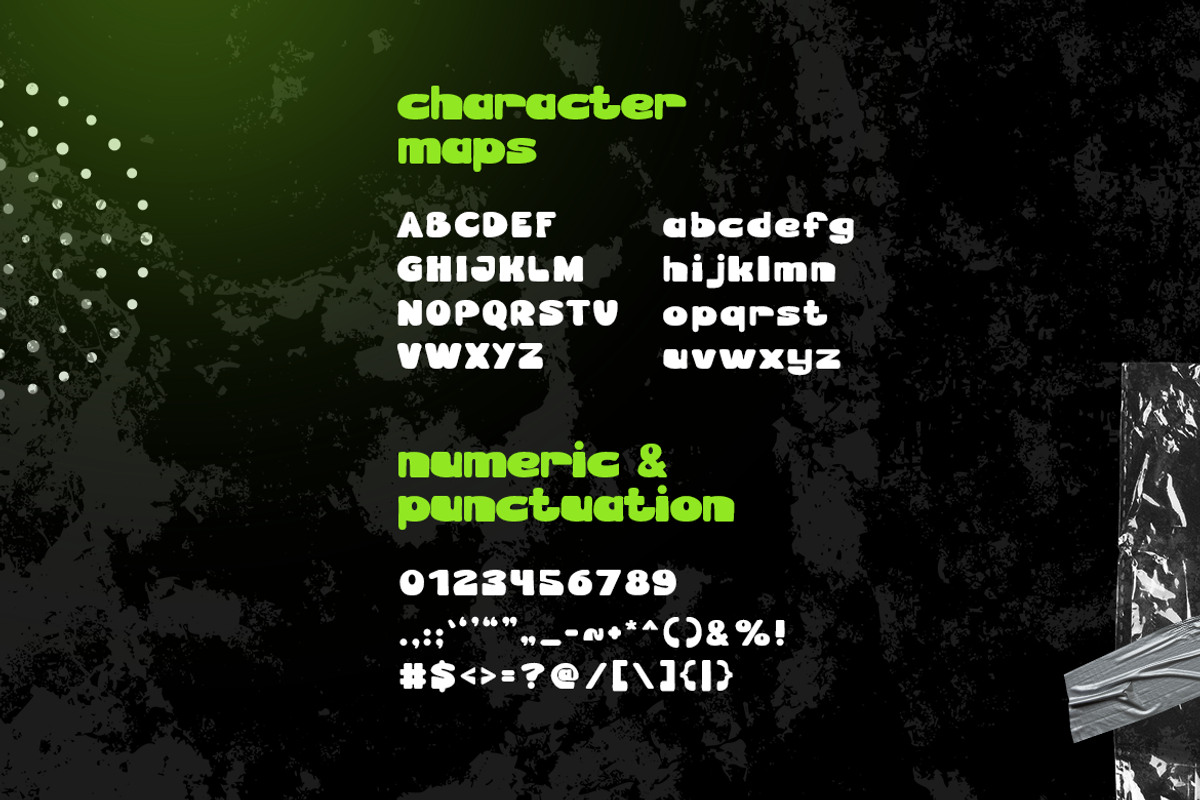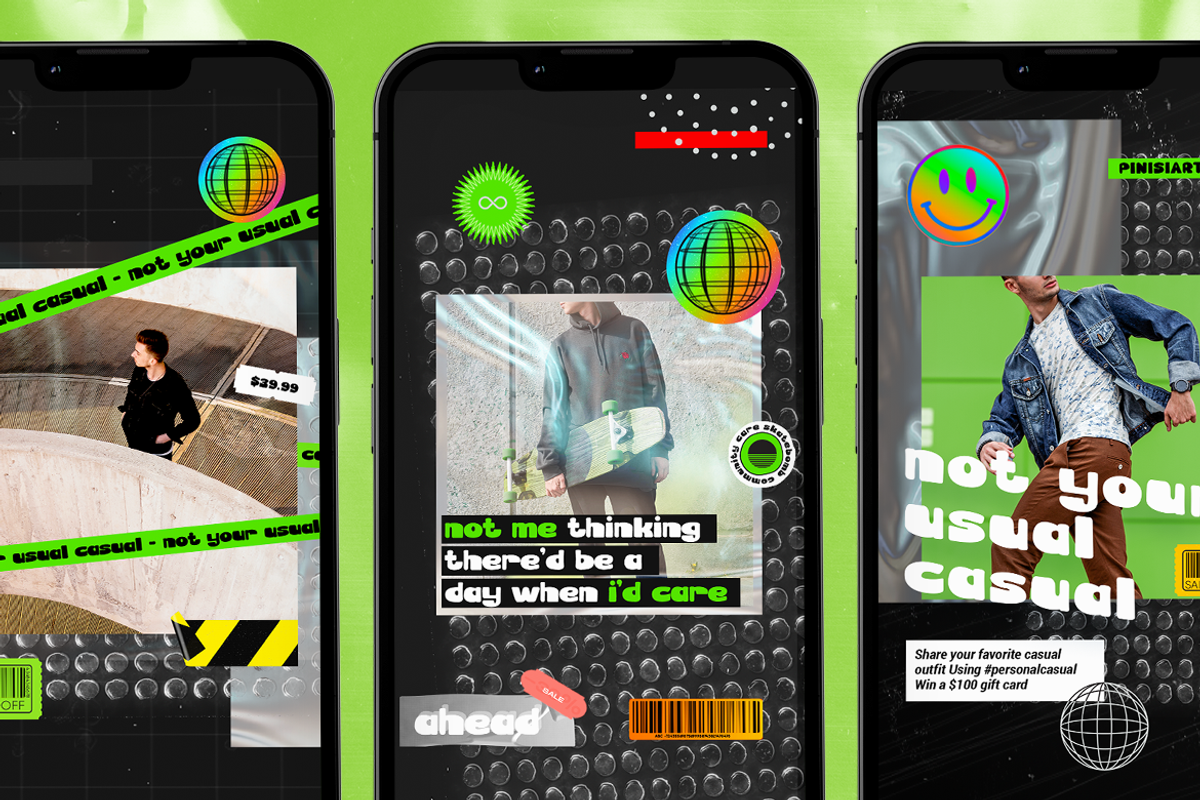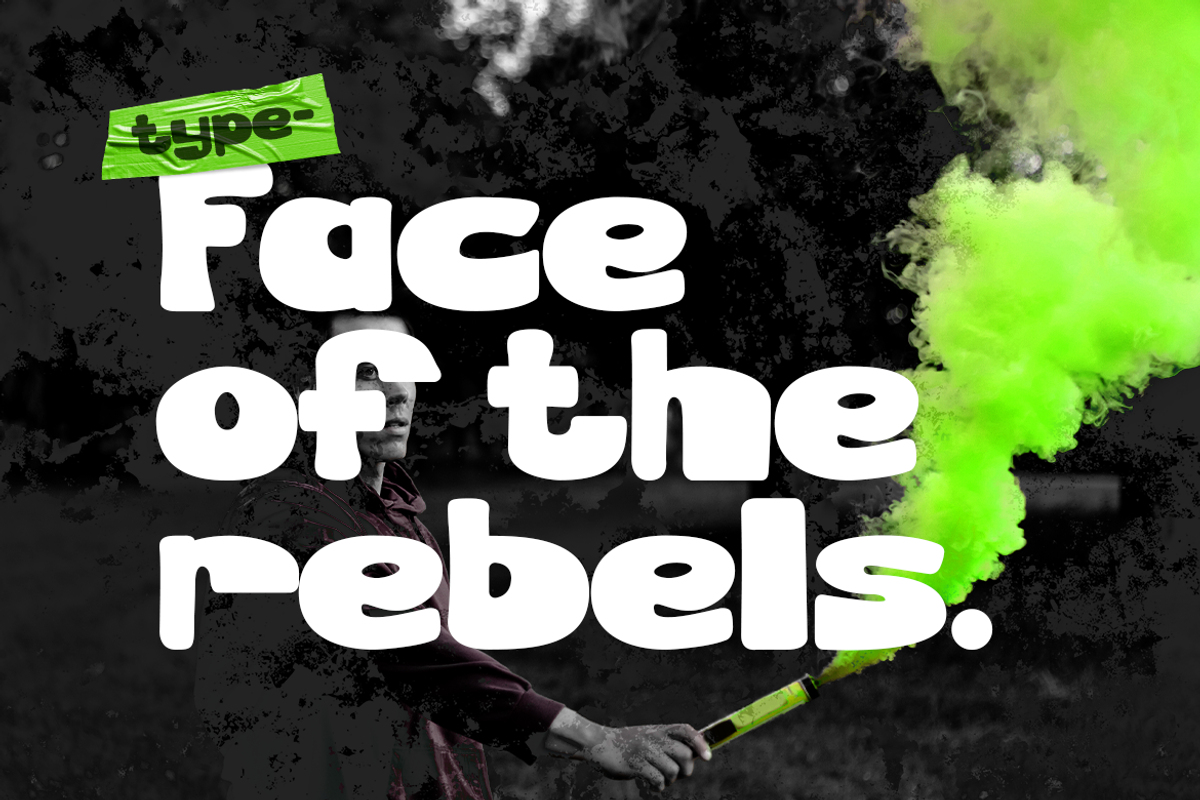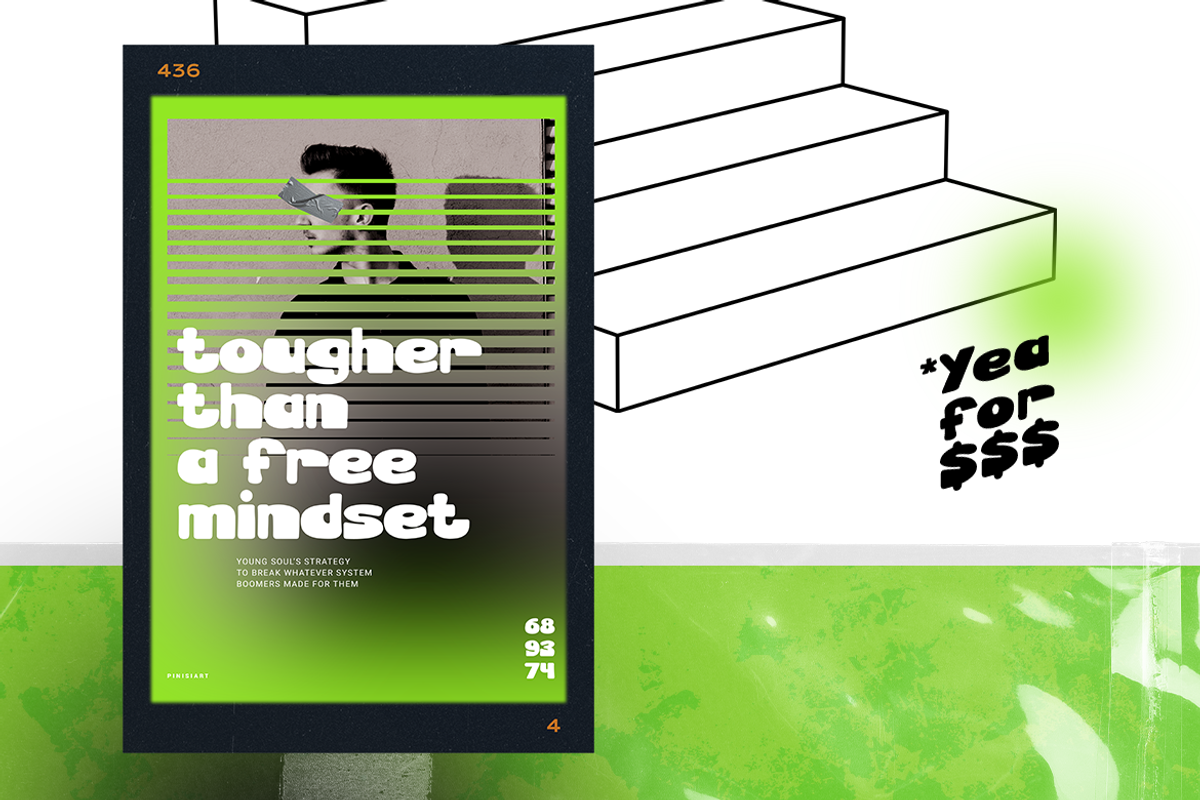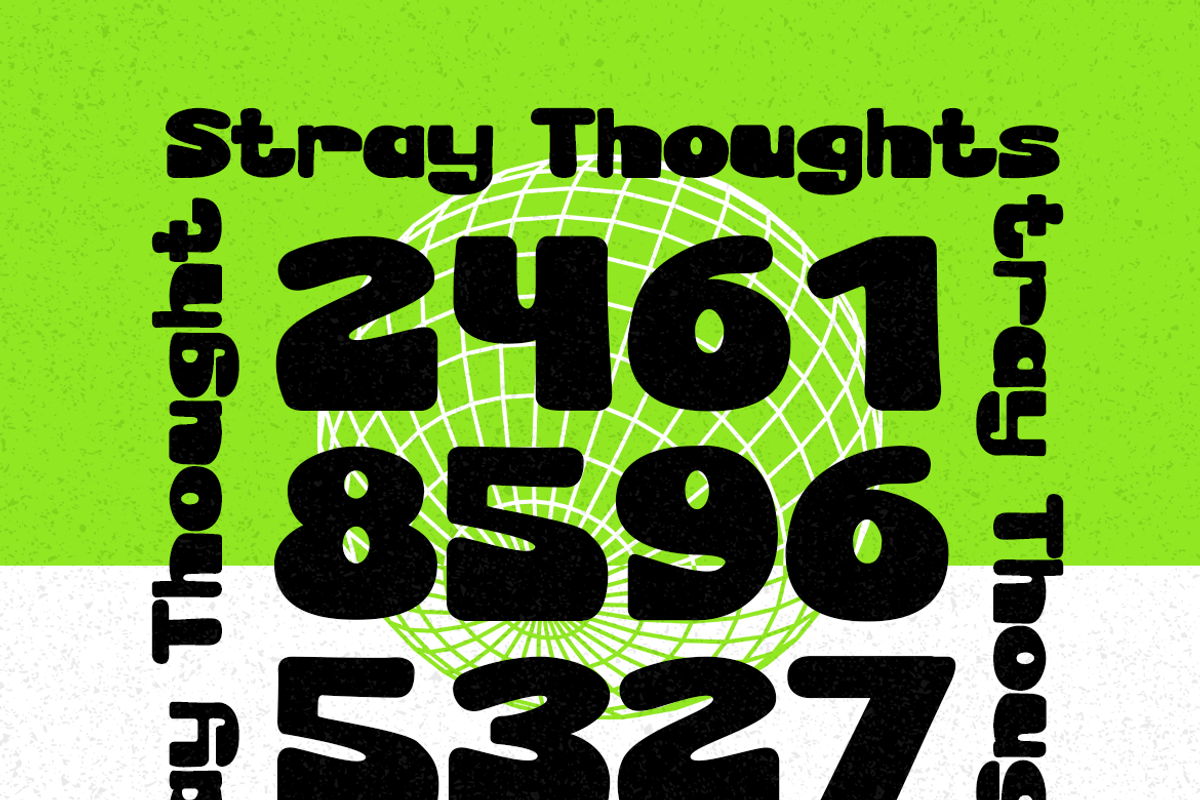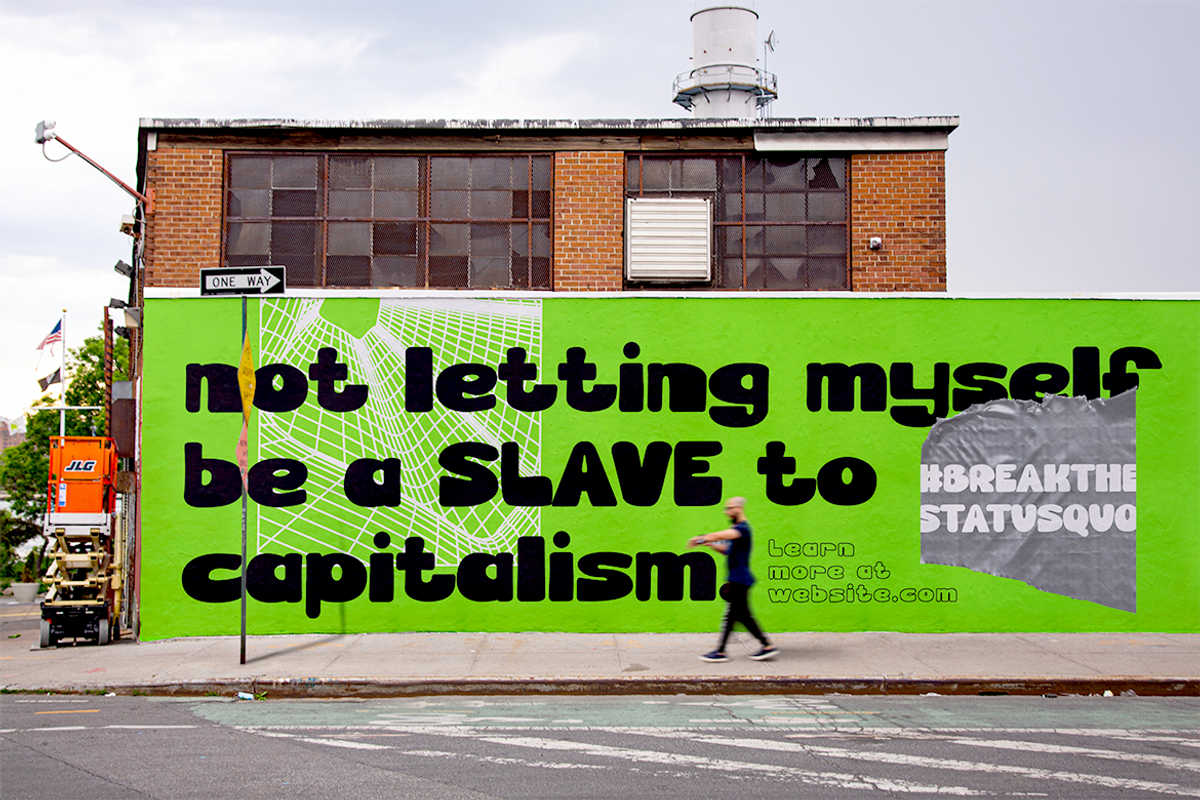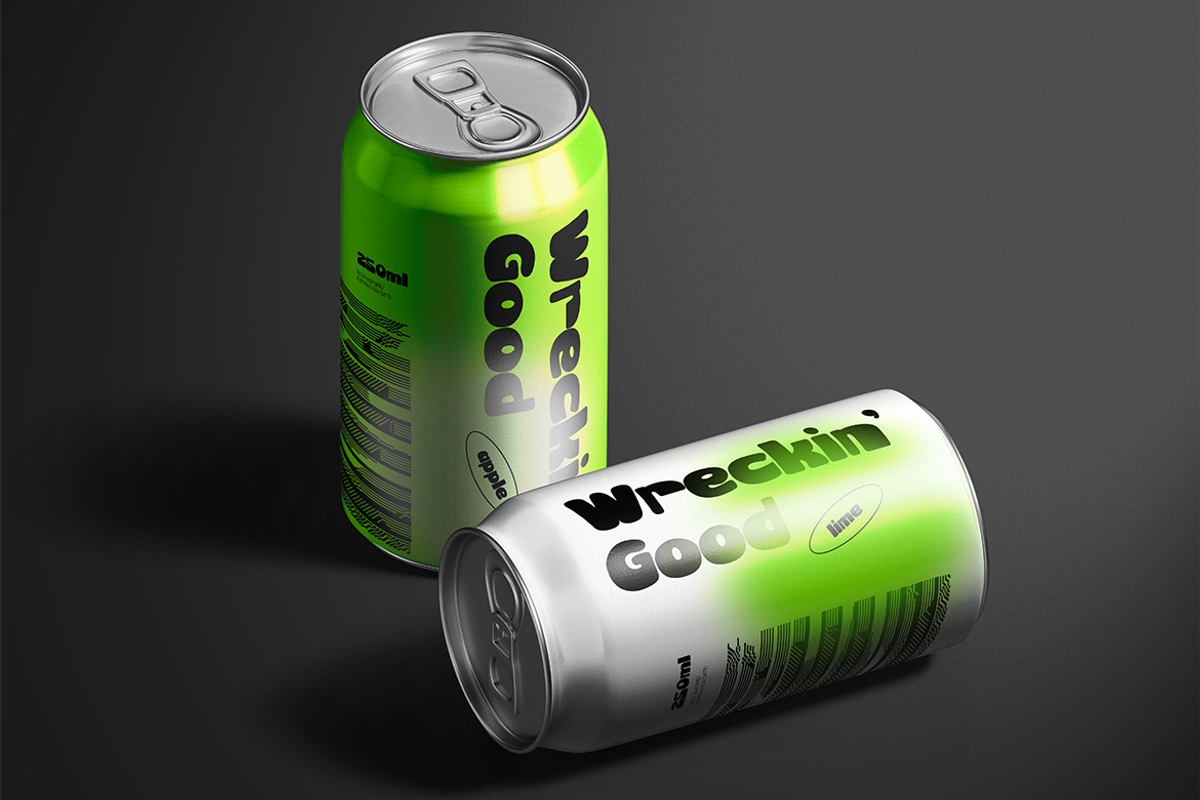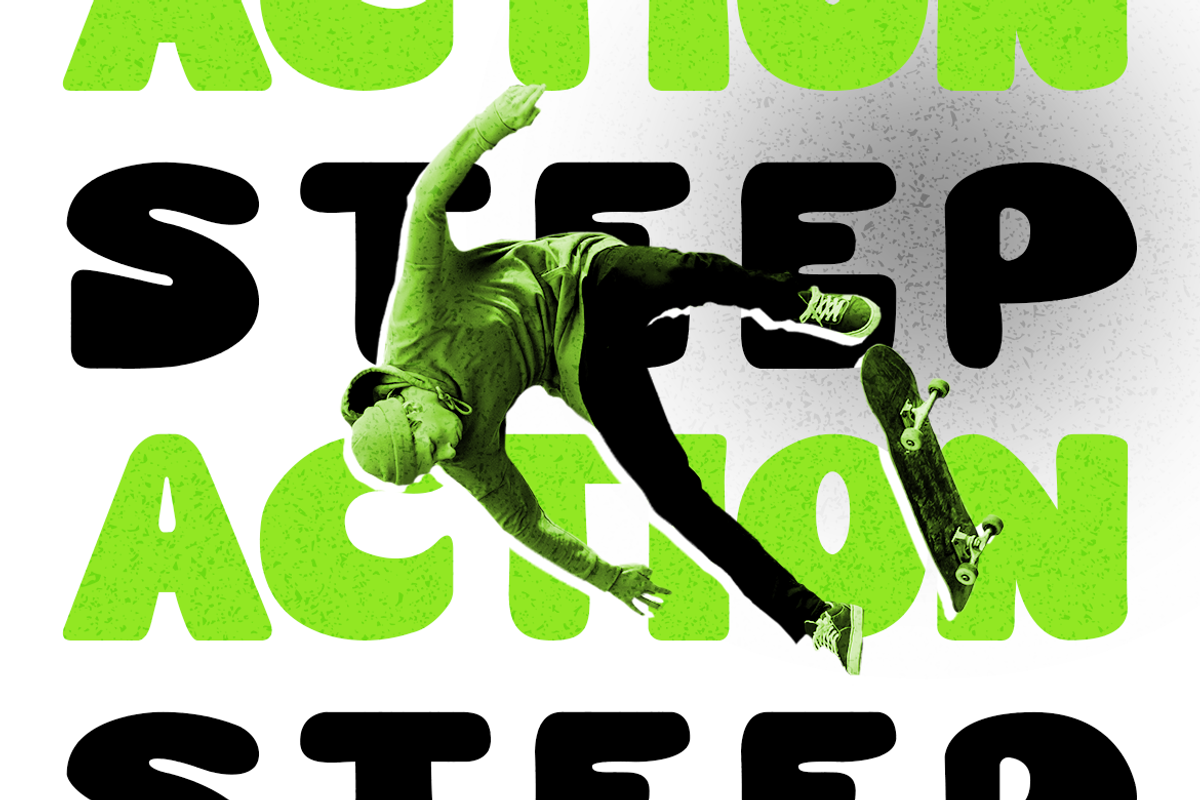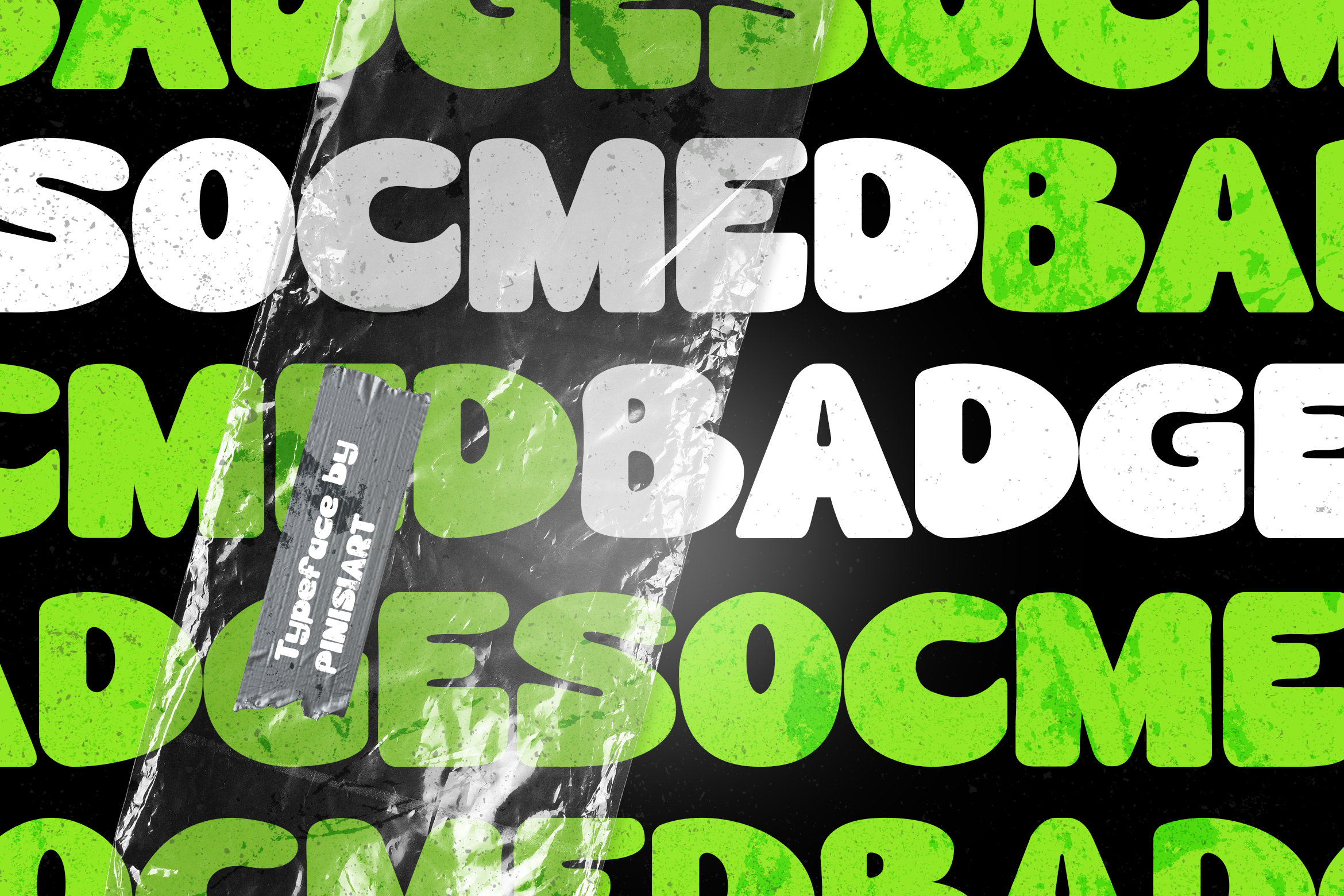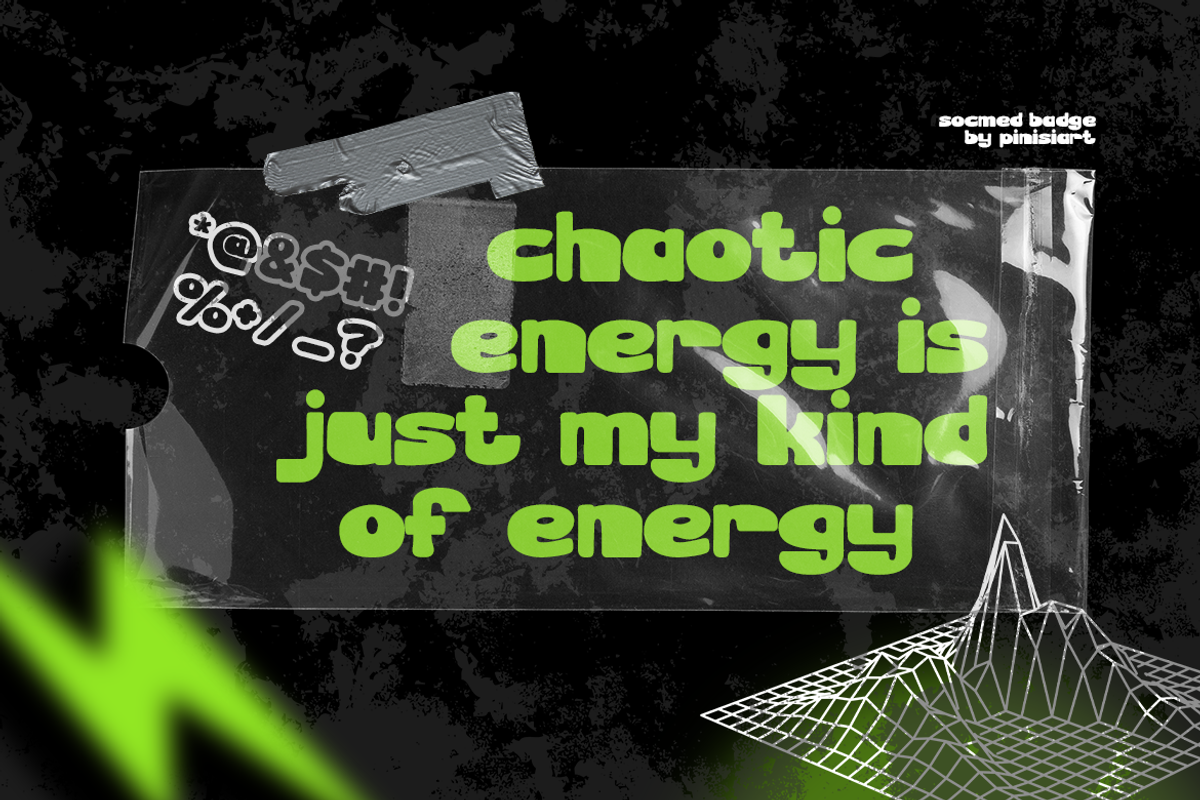
SOCMED BADGE – Display Font
Popping color and grabbing people’s attention any second of the way. This is SOCMED BADGE way.
Suit perfectly for mature and elegant themes books market, economic posters, stationary, school supplies font, youtube covers, youtube thumbnails, social media page covers and so on…